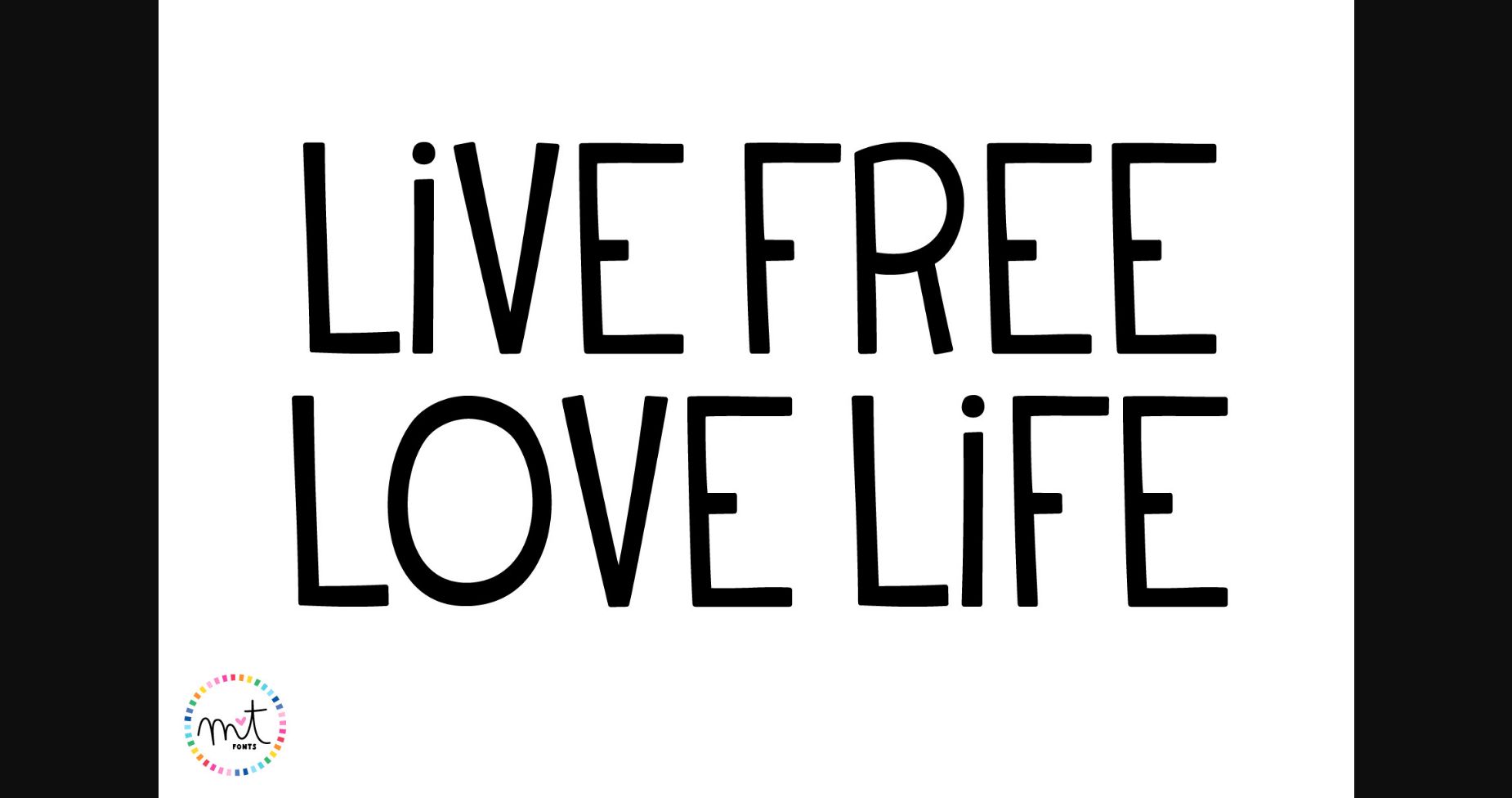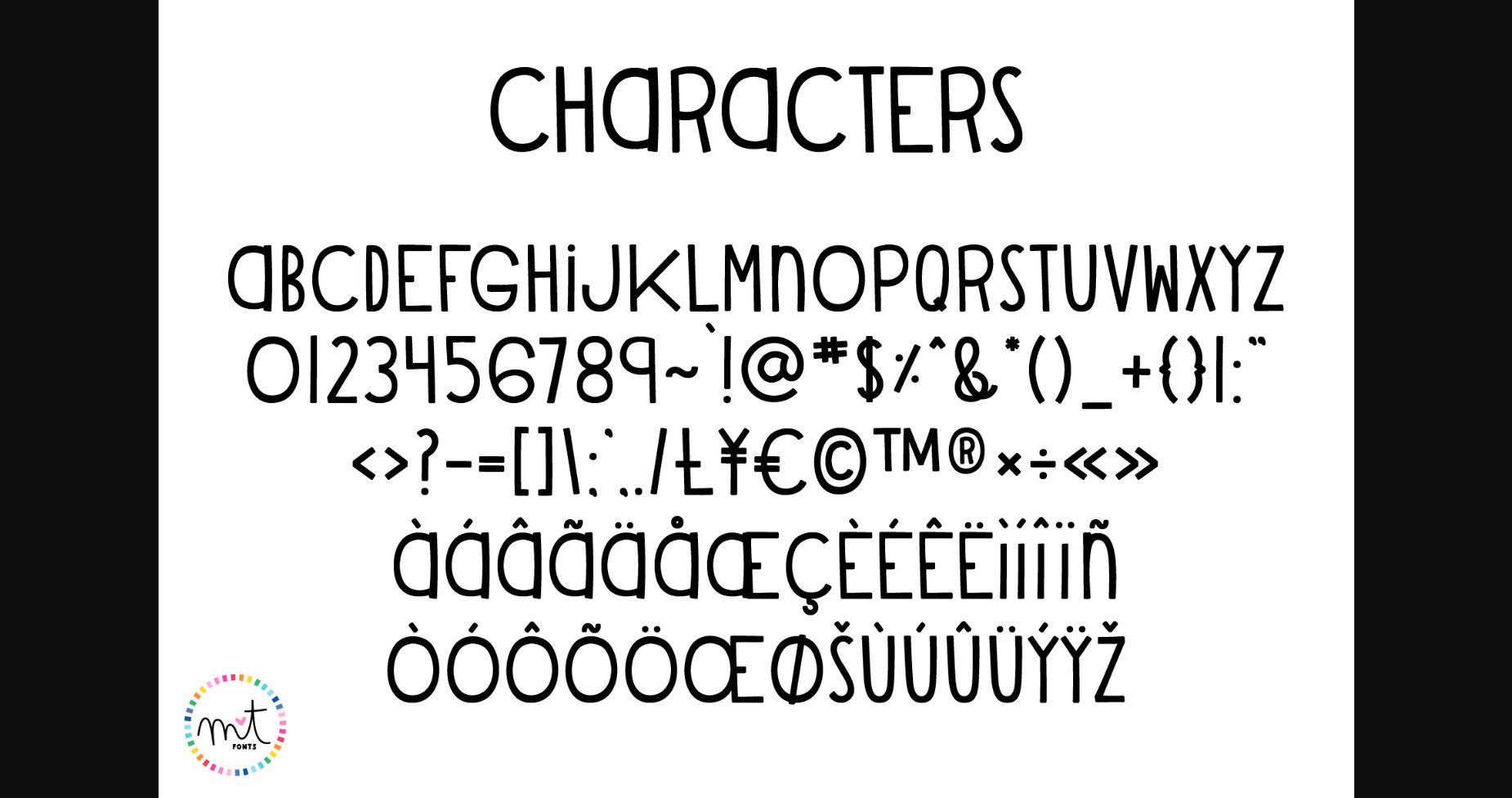
Live Free Love Life Font
About Live Free Love Life Font
Live Free Love Life is a charming handwritten sans serif font that embodies a carefree and joyful spirit. Its smooth, clean lines offer a contemporary appeal, while the hand-drawn touch adds a personal and authentic feel. Perfect for adding a touch of positivity and warmth to any project, this font encourages you to embrace life with love and freedom.